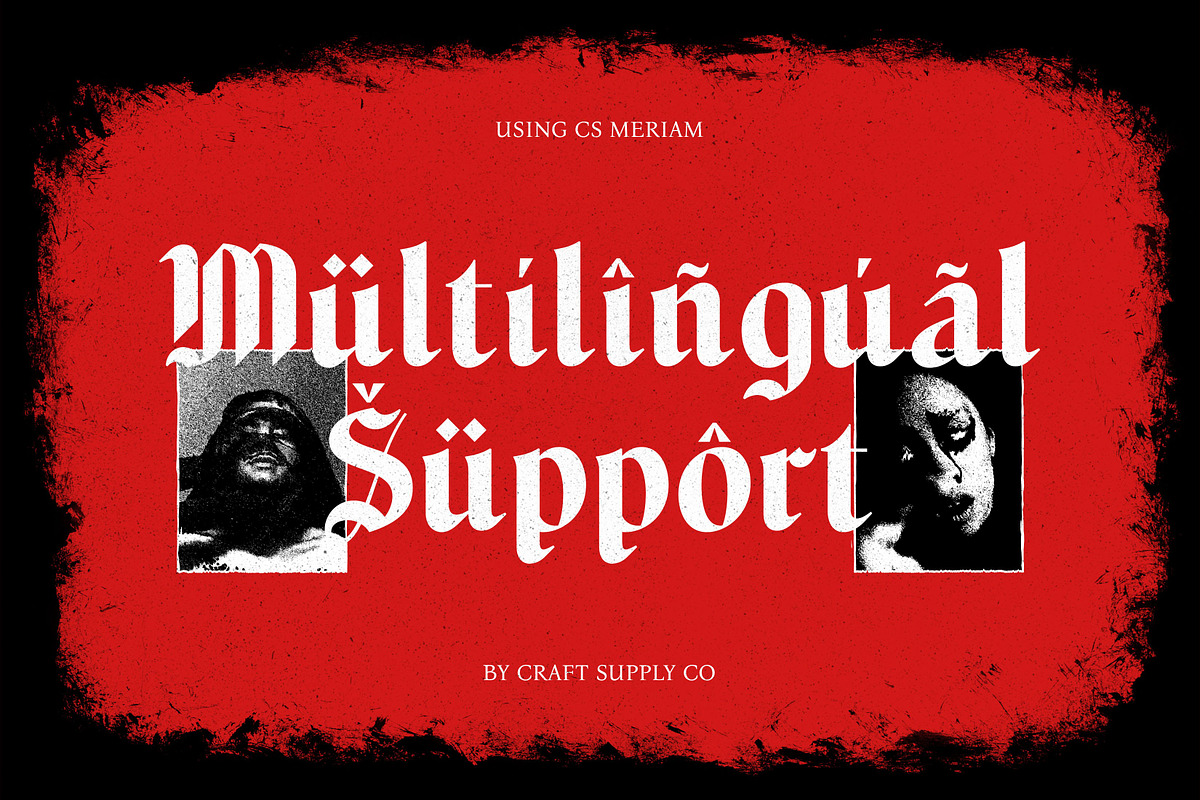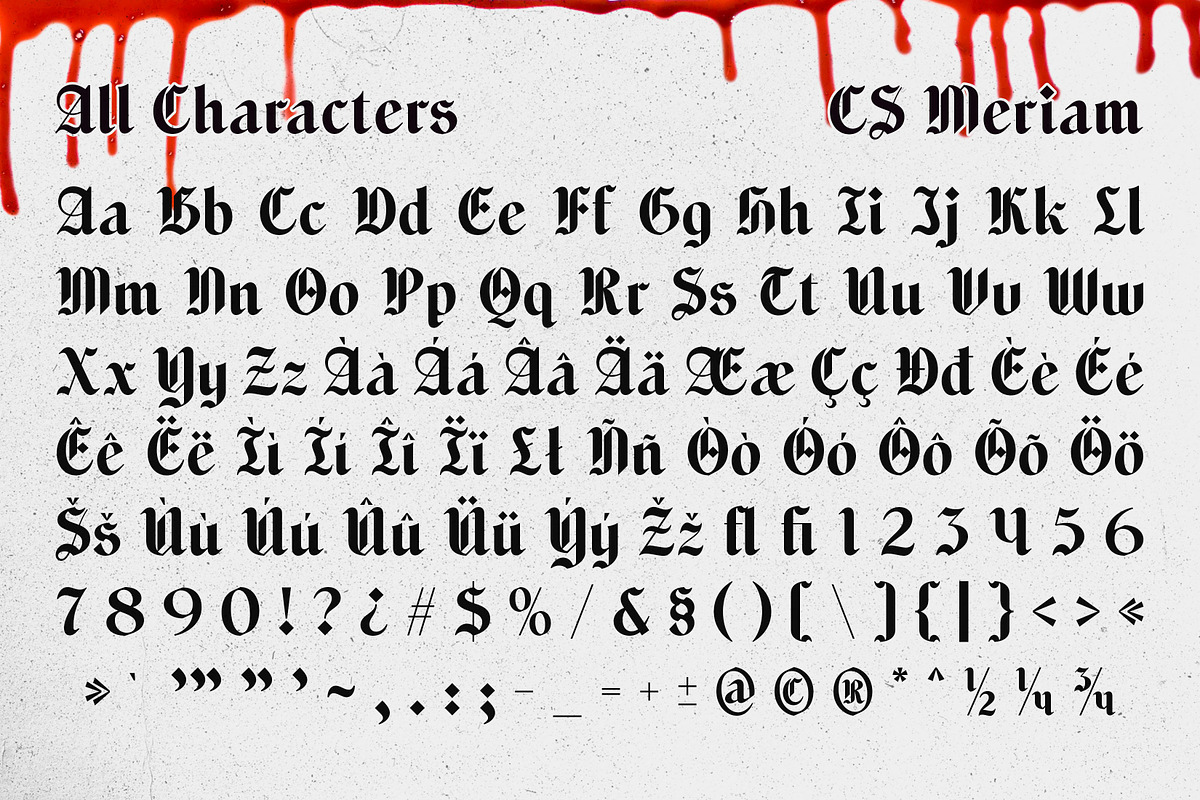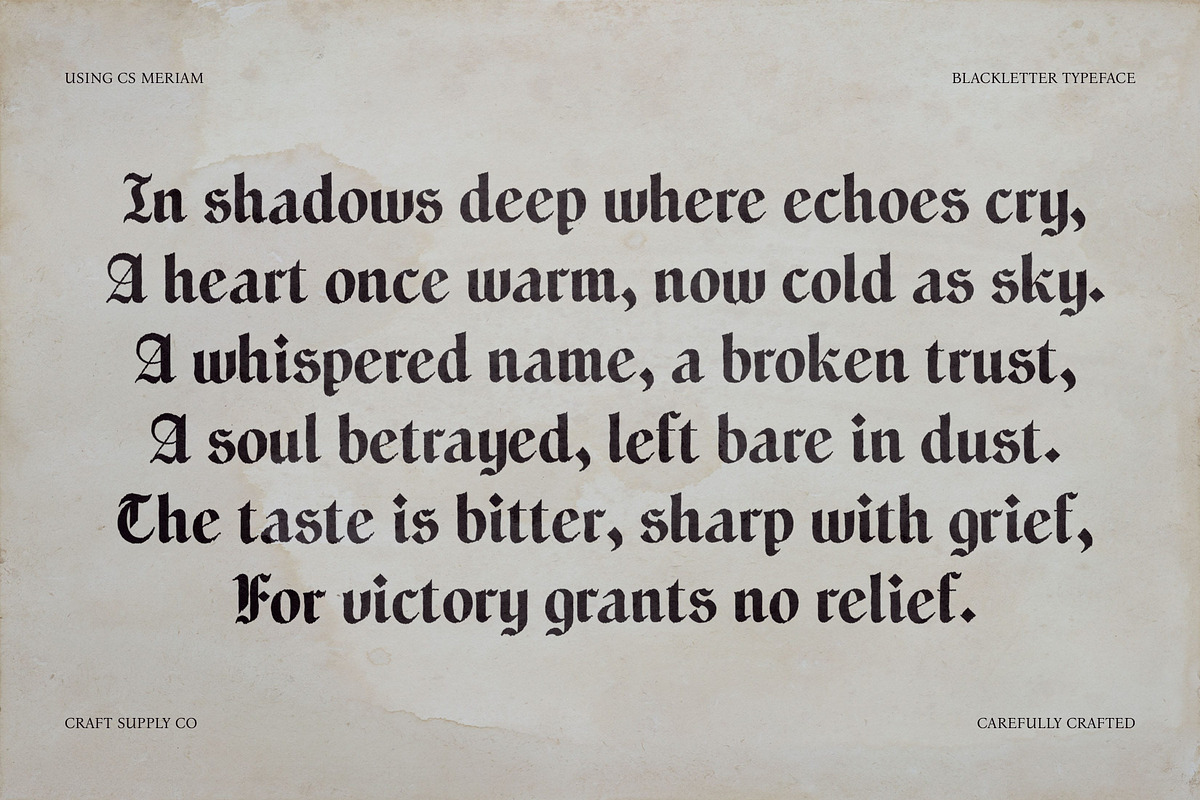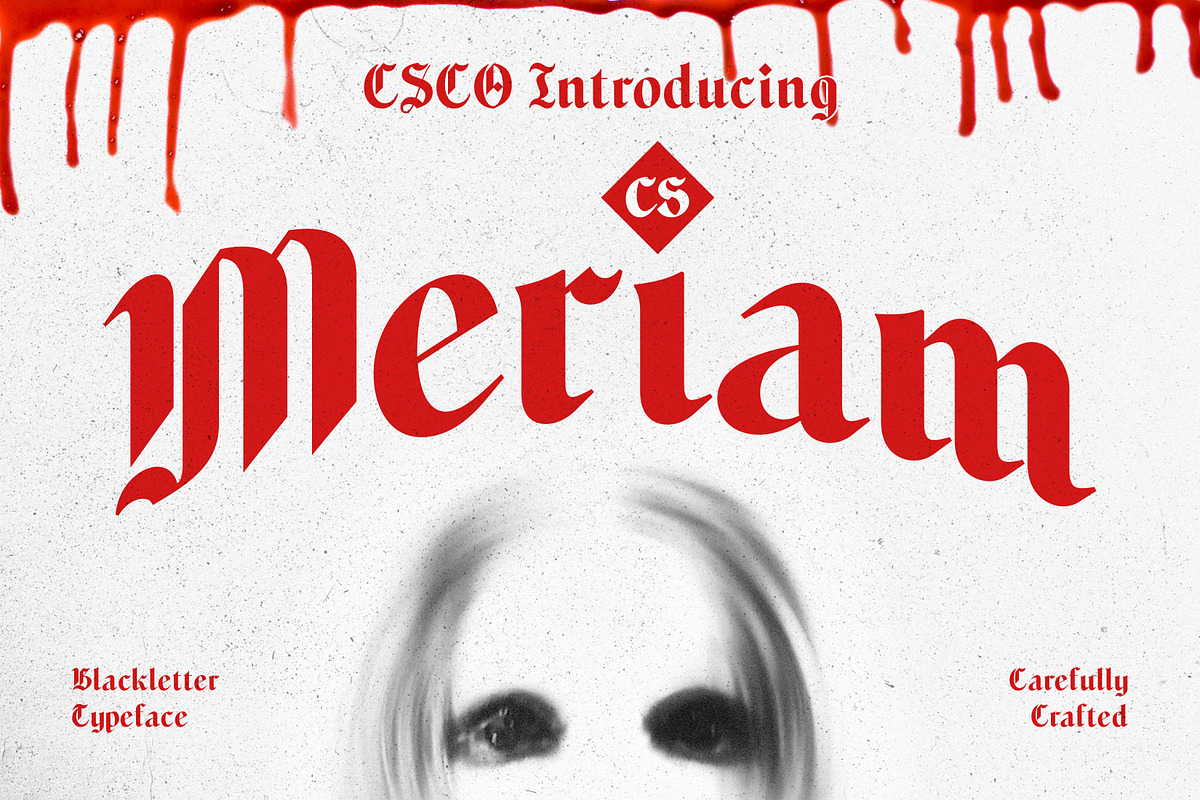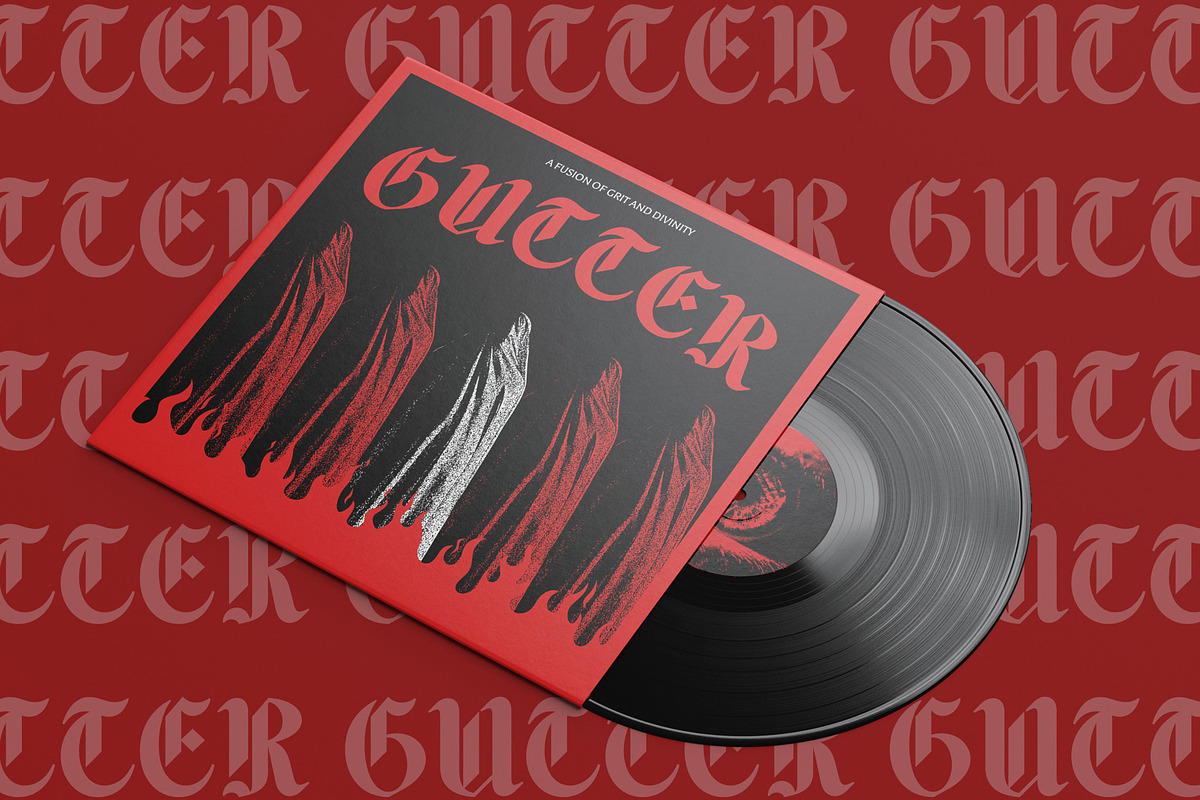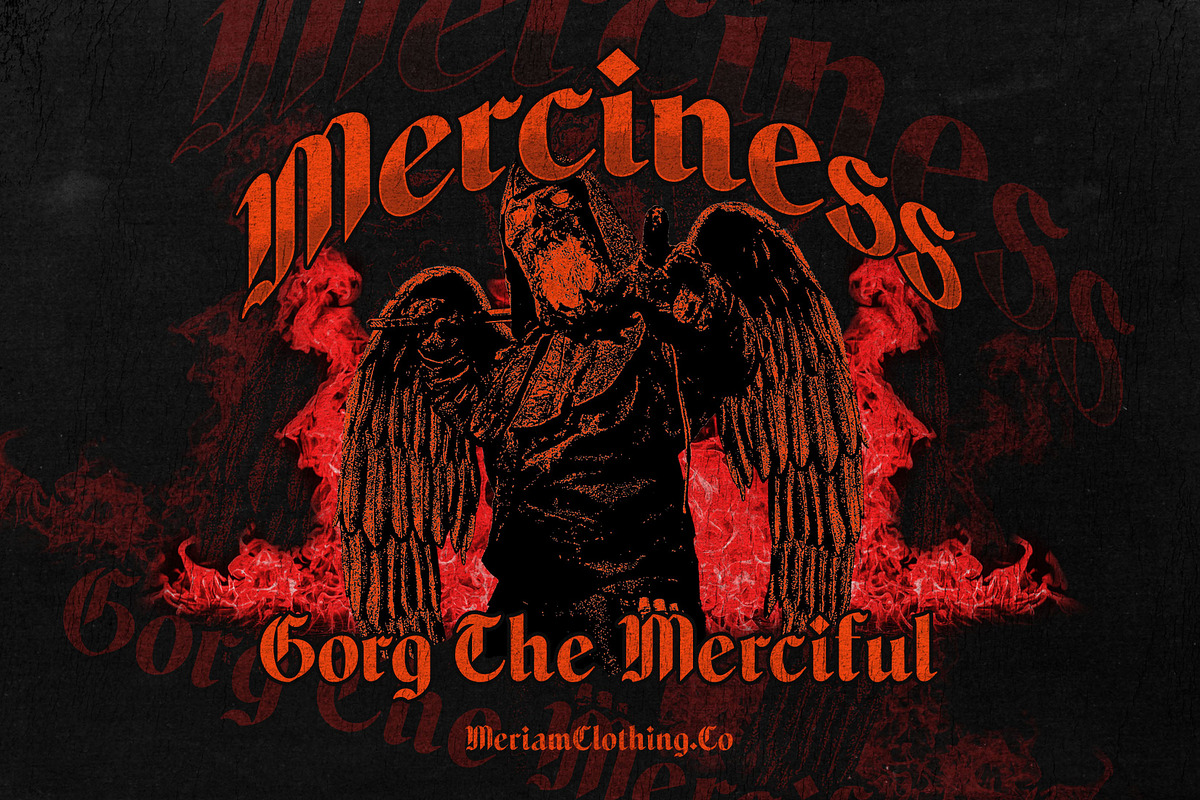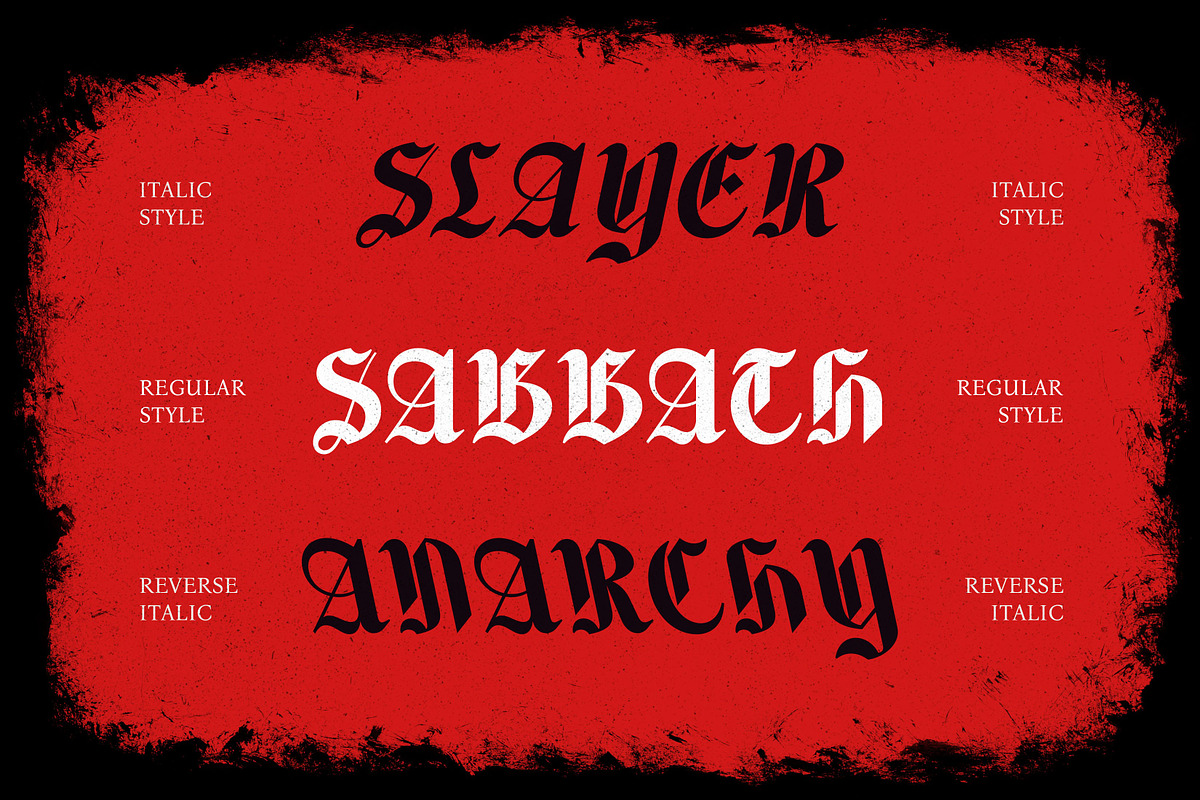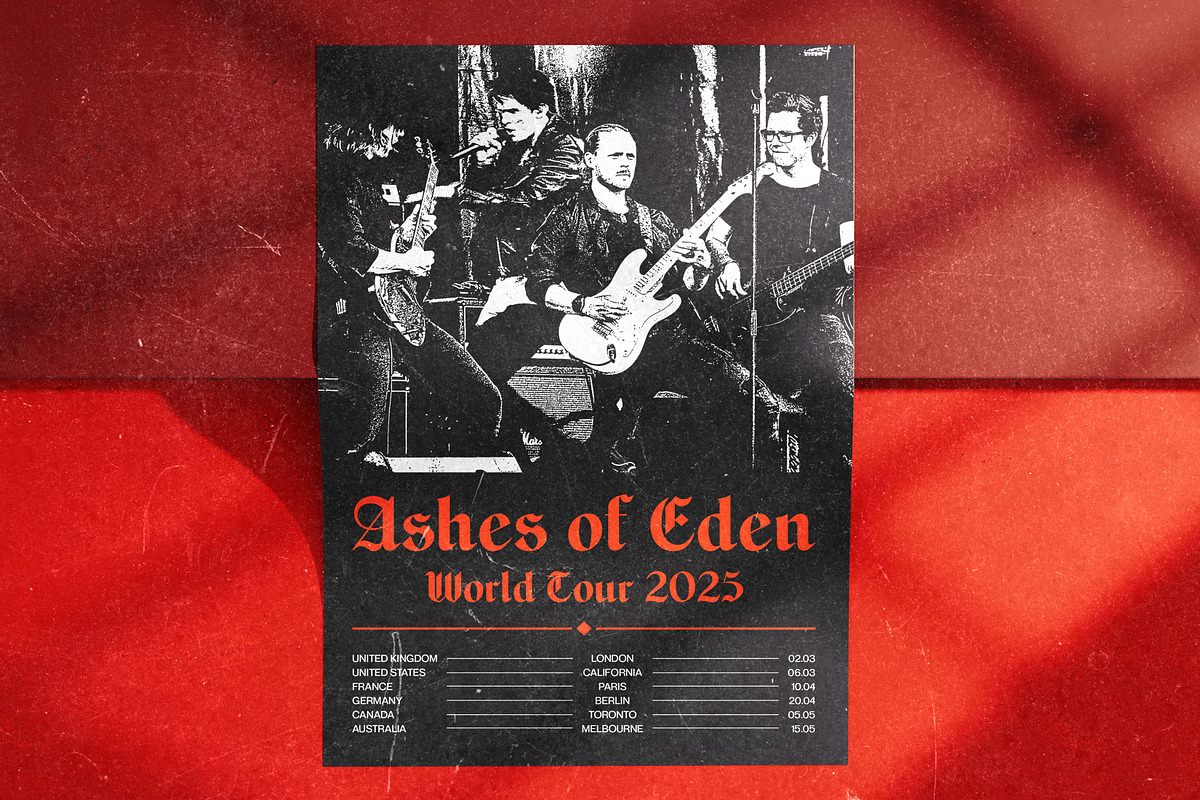
CS Meriam – Blackletter Font
CS Meriam – Blackletter Font: A Bold Medieval Elegance
Blackletter Display with Intricate Details CS Meriam is a striking blackletter display font inspired by the rich tradition of medieval calligraphy. Its bold and intricate letterforms bring a sense of history and craftsmanship, making it an excellent choice for designs that demand a timeless and authoritative aesthetic.
Sharp Angles for a Strong Presence Featuring sharp angles and precise strokes, CS Meriam exudes strength and sophistication. The combination of rigid structure and fluid curves enhances its visual impact, making it perfect for logos, book covers, and editorial headlines that require a dramatic flair.
Ornate Details for Historical Charm With its refined flourishes and decorative details, CS Meriam embraces the elegance of traditional blackletter styles. These intricate elements add depth and authenticity, allowing it to stand out in vintage-inspired branding, gothic themes, and artistic compositions.
Perfect for Logos, Vintage Designs, and Statement Typography CS Meriam is ideal for projects that seek a bold and historical touch. Whether used in branding, merchandise, posters, or album covers, it delivers a distinctive character that commands attention. Its strong presence and artistic craftsmanship make it a powerful choice for statement typography in both modern and classic designs.
- CS Meriam Regular
- CS Meriam Italic
- CS Meriam Reverse Italic